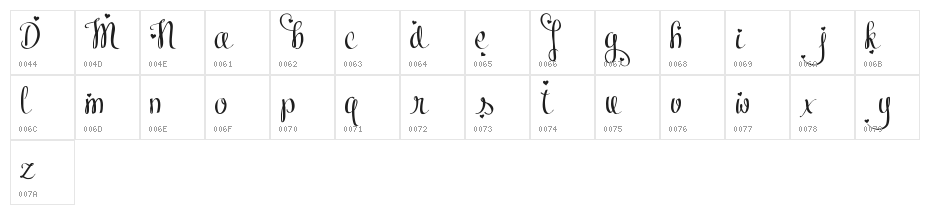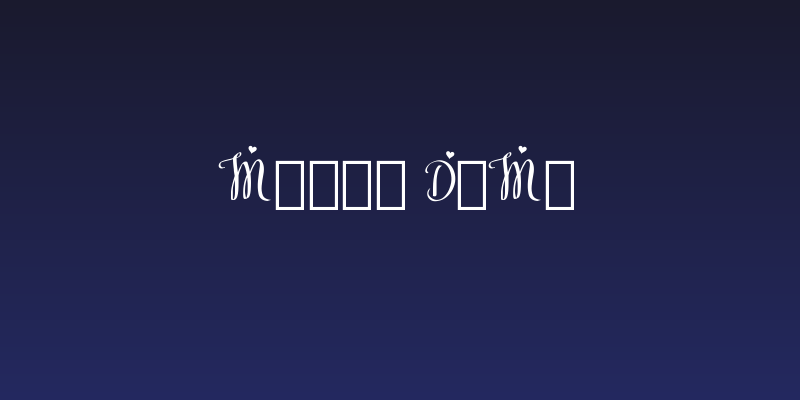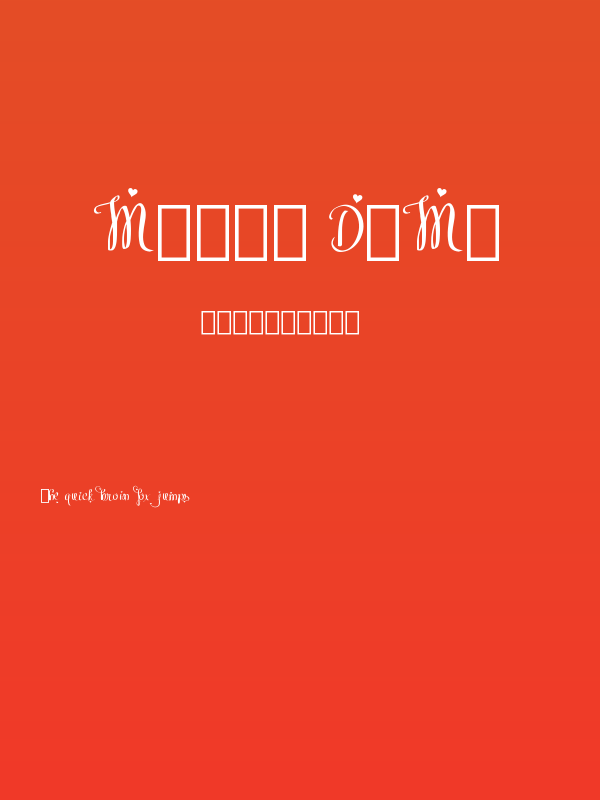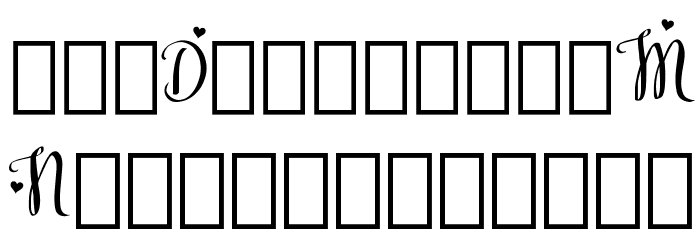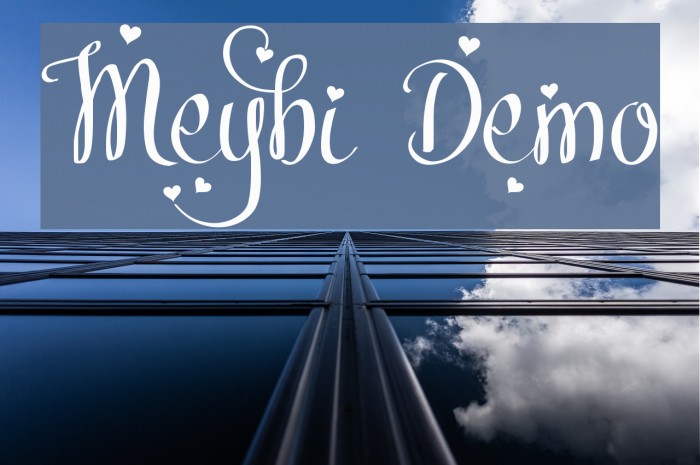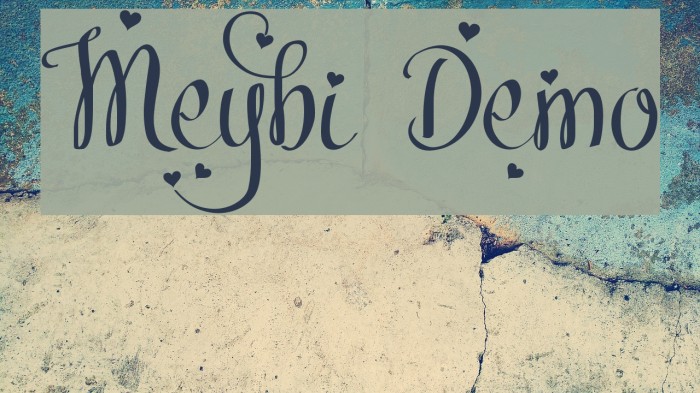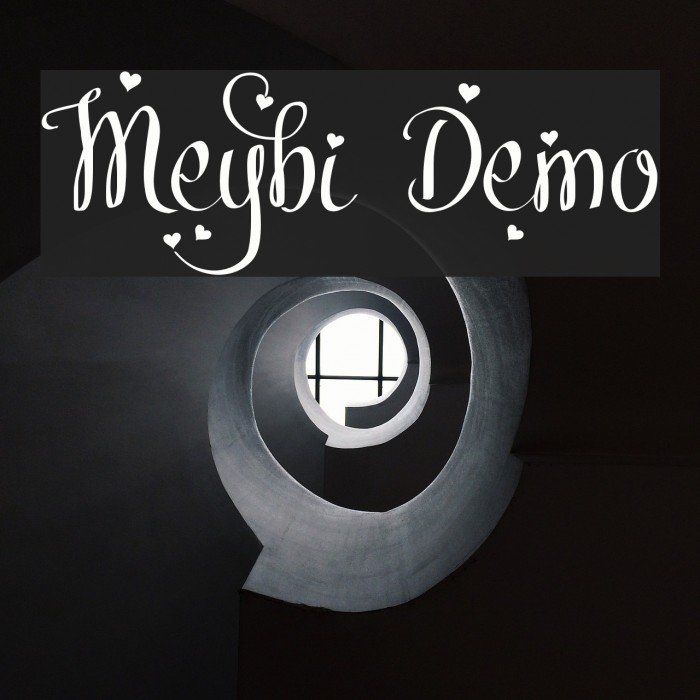
Meybi Demo Font
Meybi Demo Description
This font features a whimsical and romantic style, characterized by elegant, flowing lines and decorative heart accents. The letters are interconnected with graceful curves, giving it a handwritten appearance. The uppercase letters are bold and prominent, while the lowercase letters maintain a consistent flow, enhancing the script-like quality. The font exudes a playful yet sophisticated charm, making it ideal for projects that require a touch of elegance and creativity. The heart motifs add a unique flair, perfect for conveying love and affection in design.
| Proposed Projects | Ideal for wedding invitations, greeting cards, romantic branding, and decorative posters. |